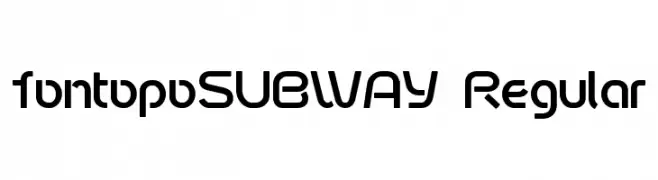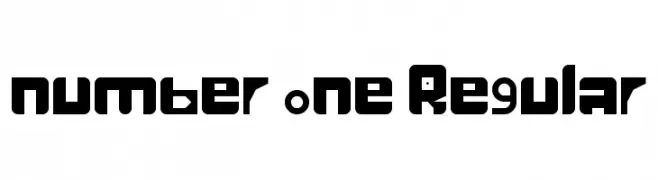
( Taylor Adkins )
A modern, vintage-inspired font with tall, narrow letterforms and subtle decorative elements.
( Vladimir Nikolic - www.coroflot.com/vladimirnikolic )
Bold, shadowed, italic font with decorative elements and a dynamic style.
( Vladimir Nikolic - www.coroflot.com/vladimirnikolic )
A bold, italic typeface with angular, futuristic letterforms and decorative elements.
( Vladimir Fedotov )
A modern-vintage font with elongated strokes and playful curves.
( Xerographer Fonts - Max Infeld - xerographer.blogspot.com )
A decorative vintage font with intricate, hand-drawn details and a textured appearance.
( Yoshihisa Nakai - fontopo.com )
A modern, geometric font with rounded edges and a cohesive, bold appearance.
( Zetafonts - www.zetafonts.com )
A sleek, modern italic sans-serif font with a clean and dynamic appearance.
( ingoFonts - Ingo Zimmermann - www.ingofonts.com )
A clean, modern sans-serif font with consistent stroke width and elegant curvature.
( mr eel )
A bold, geometric font with a futuristic and digital aesthetic.
( weknow - Wino S Kadir - www.creativefabrica.com/designer/weknow/ )
A bold, cursive font with smooth, flowing lines and a handwritten appearance.